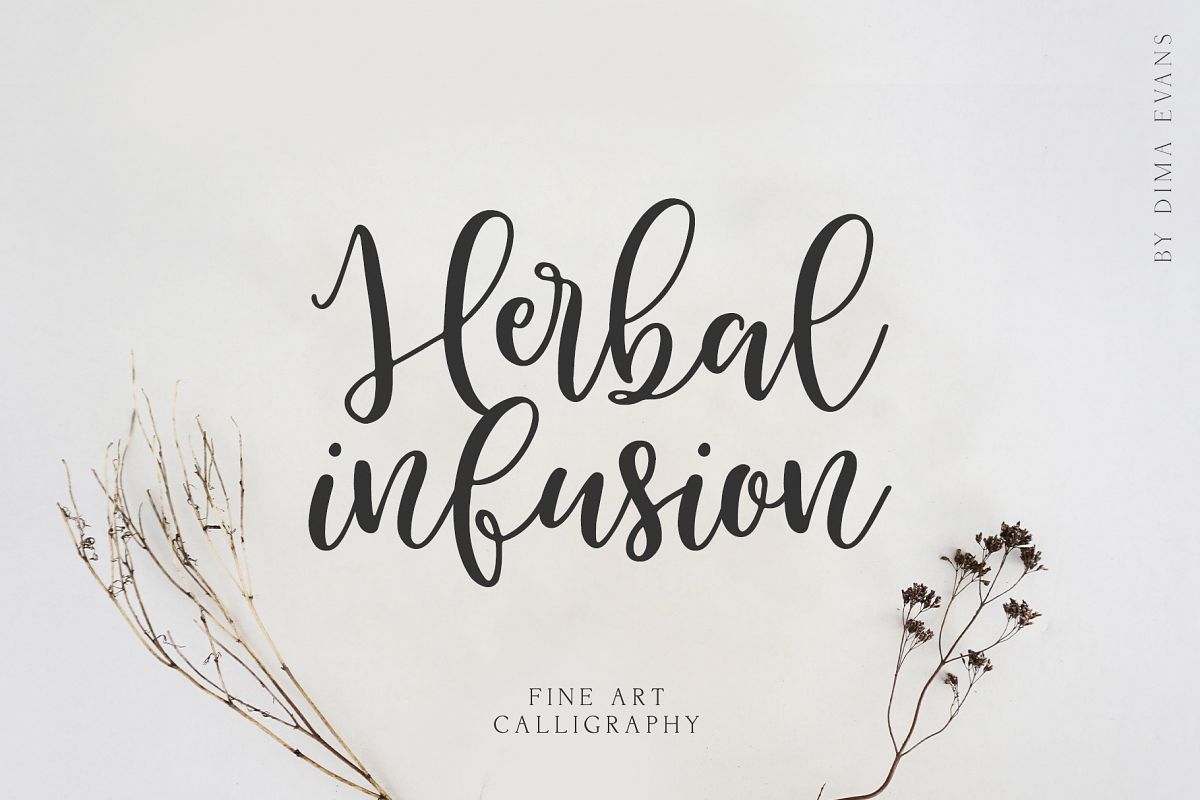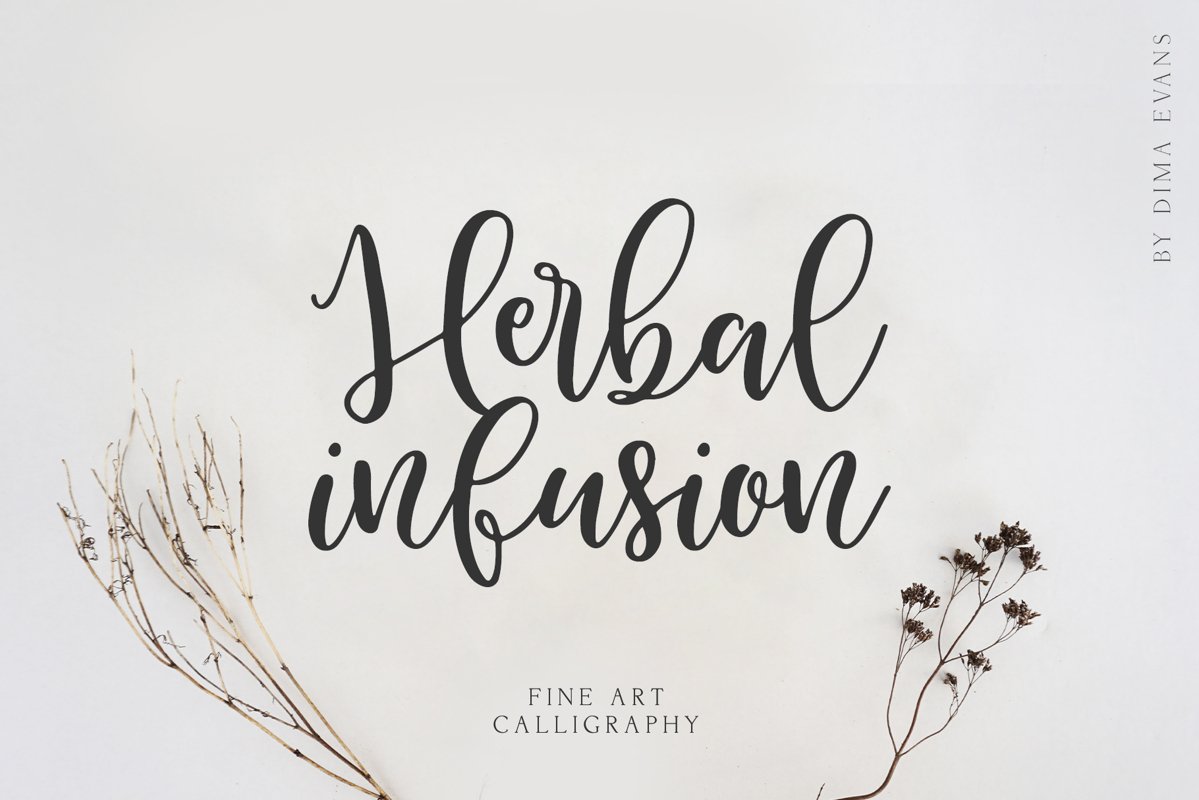
Herbal Infusion handwritten font
Herbal Infusion it is a sweety modern calligraphic font with ligatures. It is perfect for branding, wedding invitations and invitation cards and many more
• Support ALL European Languages